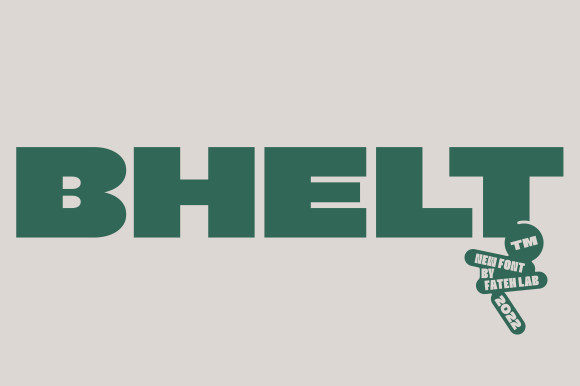
Take your typography game to new heights with Bhelt Font, a dazzling display font family curated for bold and captivating designs. Dive into the world of stunning subway art, where Bhelt's unwavering strength takes center stage, leaving an indelible mark on your creative journey.
Awaken your inner artist with the mesmerizing dance of Bhelt, a duo font that blends the raw power of dingbats with the elegance of display. Unleash your imagination and let your designs soar, as Bhelt effortlessly transforms your projects into visual masterpieces.
Embrace the allure of simplicity with Bhelt's streamlined and distinctive letterforms, crafted with precision to deliver maximum impact. Its unwavering boldness commands attention, while its unique style adds an undeniable touch of sophistication to any project.
With Bhelt by your side, transcend the boundaries of ordinary typography and delve into a realm of creative possibilities. Let your designs shine with unwavering confidence, knowing that Bhelt will carry your message with unwavering strength.
Experience the transformative power of Bhelt today, and witness the remarkable evolution of your designs as they take on a life of their own. Join the ranks of inspired creatives who have unlocked the true potential of their typography with Bhelt.